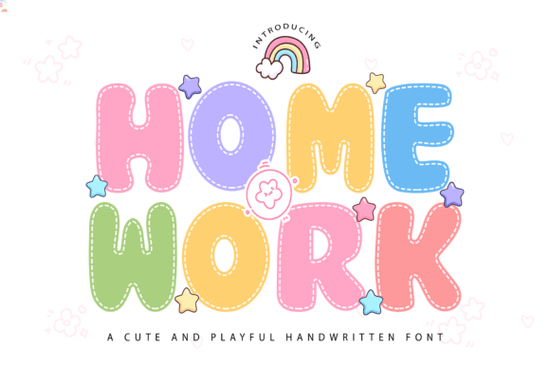
If you're looking for a font that adds a playful and cozy touch to your designs, the Cute Homework Font is a fantastic choice. This kawaii puffy stitch bubble font is perfect for creating cheerful and kid-friendly designs that stand out.
Why Choose Cute Homework Font?
The Cute Homework Font is designed with a sweet stitched/dashed outline, making it look like each letter is hand-stitched. The rounded, chunky, and easy-to-read letters make it ideal for both big titles and everyday text. Whether you're working on school-themed projects, kids' branding, or cute product packaging, this font brings a delightful and whimsical feel to your work.
Perfect for School-Themed Projects
One of the standout features of the Cute Homework Font is its versatility in school-themed projects. You can use it for classroom worksheets, planner pages, and even notebook covers. The font's playful and friendly appearance makes it a hit with both kids and adults, adding a touch of fun to educational materials.
Ideal for Kids Branding and Product Packaging
For those involved in kids' branding or creating product packaging, the Cute Homework Font is a great asset. Its charming and approachable style pairs beautifully with pastel palettes, doodles, hearts, stars, and kawaii illustrations. This combination creates a cohesive and appealing design that resonates with young audiences.
How to Use Cute Homework Font in Your Designs
Incorporating the Cute Homework Font into your designs is straightforward. Here are some tips:
- Combine with Pastel Colors: Use pastel colors to complement the font's soft and sweet look. This creates a harmonious and visually pleasing design.
- Add Doodles and Illustrations: Enhance your designs by adding doodles and kawaii illustrations. These elements work well with the font's playful style.
- Use for Titles and Headings: The font's chunky and easy-to-read letters make it perfect for titles and headings. It grabs attention and sets a cheerful tone.
Pairing with Other Fonts
To create a balanced and dynamic design, consider pairing the Cute Homework Font with other fonts. For example, you can use a more traditional font like Real Varsity Jersey Bundle for a contrasting but complementary look. Another option is to pair it with a simple, clean font like Kiddie Doodle to keep the overall design light and playful.
Creating Stickers and Notebooks
The Cute Homework Font is also perfect for creating stickers and customizing notebooks. Its puffy, handwritten style adds a personal and unique touch to these items. You can use it for labels, names, and fun quotes, making them more engaging and visually appealing.
Using in Print-on-Demand Products
If you're a print-on-demand seller, the Cute Homework Font can be a valuable addition to your toolkit. It works well on a variety of products, such as t-shirts, mugs, and tote bags. The font's playful and cozy style makes it a favorite among customers, especially those shopping for gifts for children or anyone who appreciates a kawaii aesthetic.
Designing Classroom Worksheets and Planners
For educators and parents, the Cute Homework Font is a great choice for designing classroom worksheets and planners. The font's readability and charm make learning materials more engaging and enjoyable for students. You can also use it to create personalized planners and journals, adding a touch of creativity and fun to daily tasks.
Tips for Using Cute Homework Font Effectively
To get the most out of the Cute Homework Font, here are some practical tips:
- Balance with Simplicity: While the font is playful, balance it with simpler elements to avoid overwhelming the design.
- Experiment with Colors: Try different color combinations to see what works best. Pastels and bright, cheerful colors usually complement the font well.
- Use for Specific Sections: Use the font for specific sections like titles, headings, and callouts to draw attention without overusing it.
By following these tips, you can effectively incorporate the Cute Homework Font into your designs, making them more appealing and engaging. Whether you're working on school projects, kids' branding, or print-on-demand products, this font is a wonderful addition to your creative toolkit.
Next time you're looking for a font that adds a playful and cozy touch, give the Cute Homework Font a try. It's sure to bring a smile to your face and to those who see your designs.